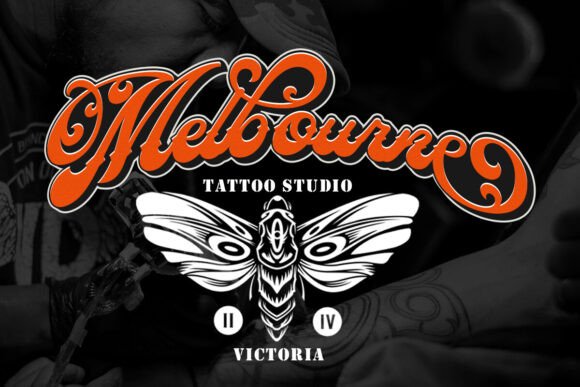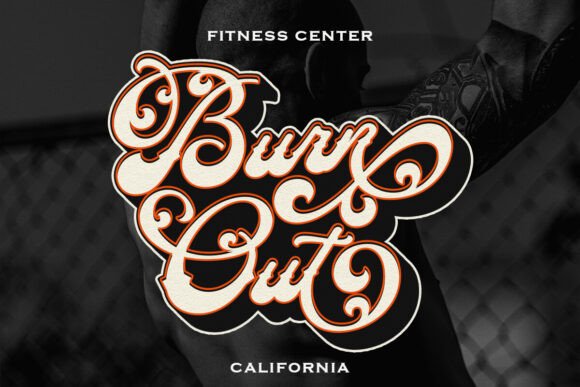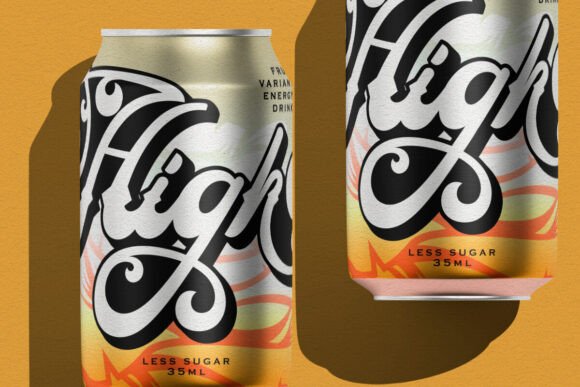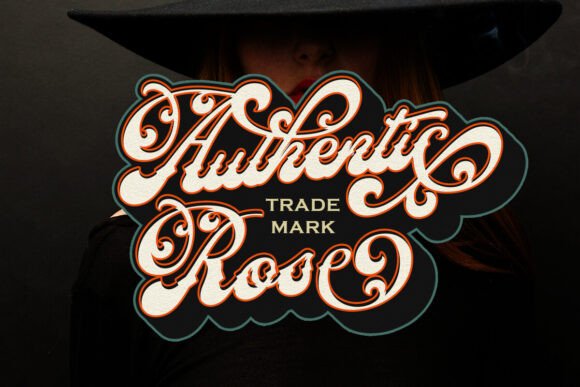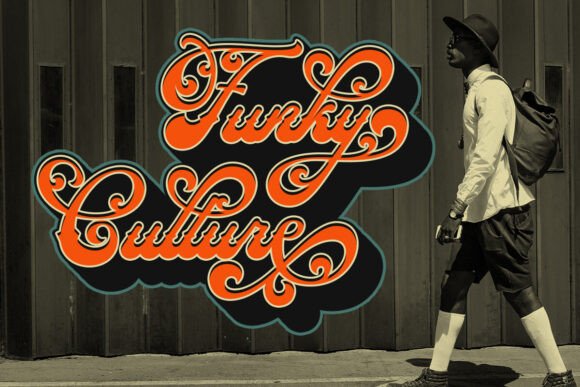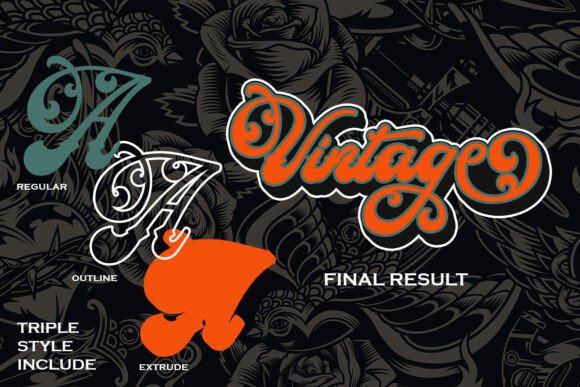
Introduction to Parley Font
Introducing our new product called Parley Tattoo font.
Parley Tattoo includes upper and lower case letters, numbers, various punctuation marks and ligatures All lowercase letters include ending swashes and alternate fonts.
Key Features of Parley Font
Why Choose Parley Font?
Parley Font offers exceptional quality and versatility, making it a valuable addition to your design toolkit. Whether you’re creating for personal projects or commercial use, Parley Font delivers professional results.